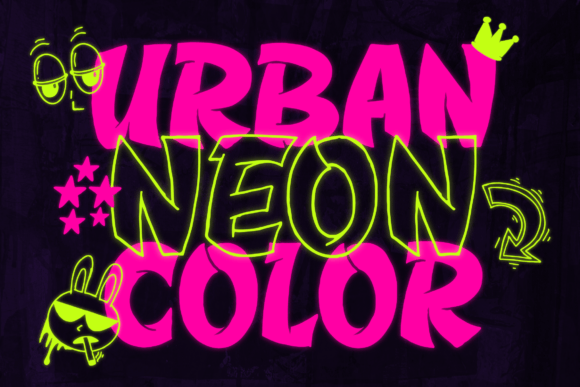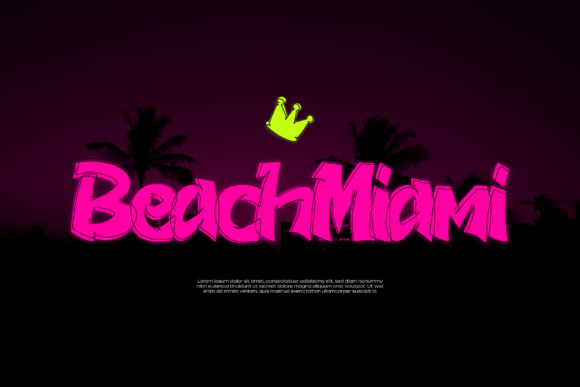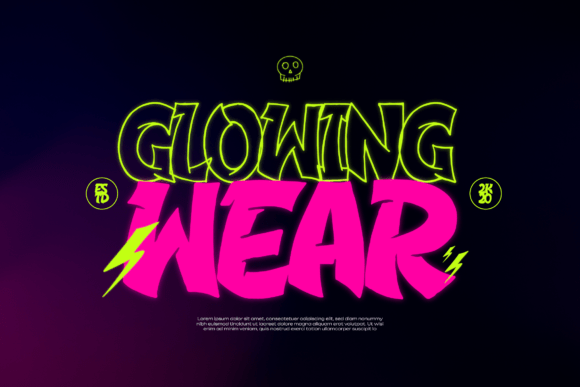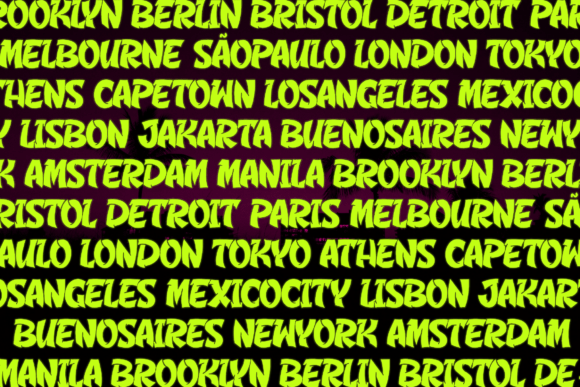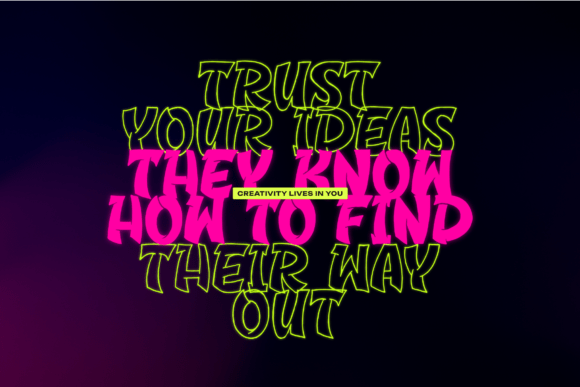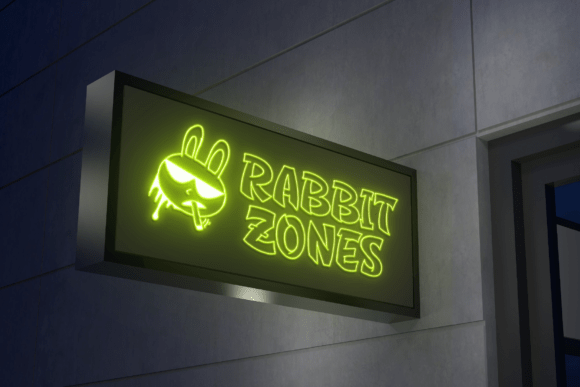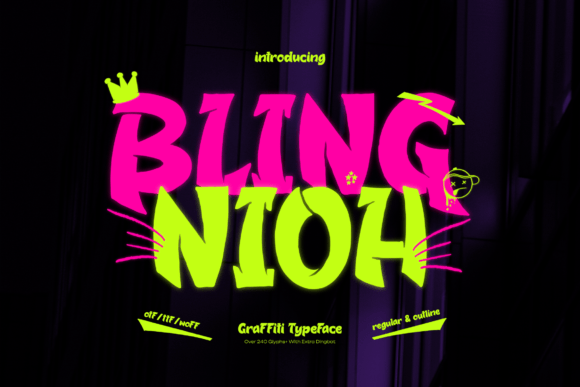
Introducing Bling Nioh: The Ultimate Graffiti Font for Creative Projects
Are you a designer or crafter looking for a unique and edgy font to add a touch of personality to your projects? Look no further than Bling Nioh, a bold and vibrant graffiti font that’s perfect for a wide range of creative endeavors. In this article, we’ll explore the features and benefits of Bling Nioh, and show you how it can elevate your designs to the next level.
What is Bling Nioh?
Bling Nioh is a graffiti font that’s designed to add a touch of urban flair to your projects. With its bold, chunky letters and vibrant aesthetic, this font is perfect for designers and crafters who want to make a statement. Whether you’re working on a logo, branding project, or homeware design, Bling Nioh is the perfect choice for anyone looking to add a bit of edge to their work.
What Can I Use Bling Nioh For?
Bling Nioh is an incredibly versatile font that can be used for a wide range of projects, including:
- Logos and branding projects: Add a touch of personality to your brand with Bling Nioh’s bold and eye-catching letters.
- Homeware designs: Create unique and stylish home decor items, such as cushions, mugs, and tote bags, with Bling Nioh’s urban flair.
- Product packaging: Stand out on store shelves with Bling Nioh’s bold and colorful font.
- Mugs and water bottles: Add a touch of personality to your drinkware with Bling Nioh’s fun and playful letters.
- Quotes and posters: Create eye-catching posters and quotes with Bling Nioh’s bold and vibrant font.
- Shopping bags and t-shirts: Add a touch of style to your apparel and packaging with Bling Nioh’s edgy aesthetic.
- Book covers and name cards: Create unique and stylish book covers and name cards with Bling Nioh’s bold and colorful letters.
- Invitation cards and greeting cards: Add a touch of personality to your invitations and greeting cards with Bling Nioh’s fun and playful font.
- Labels and photography: Use Bling Nioh to add a touch of style to your labels and photography projects.
- Watermark and special events: Create unique and stylish watermarks and event materials with Bling Nioh’s bold and eye-catching font.
Why Choose Bling Nioh?
So why choose Bling Nioh over other fonts? Here are just a few reasons why this graffiti font stands out:
- Unique and eye-catching: Bling Nioh’s bold and vibrant letters are sure to grab attention and add a touch of personality to your projects.
- Versatile: Bling Nioh can be used for a wide range of projects, from logos and branding to homeware designs and product packaging.
- High-quality: Bling Nioh is a high-quality font that’s designed to produce crisp and clear results, even at large sizes.
Tips and Tricks for Using Bling Nioh
Here are a few tips and tricks to help you get the most out of Bling Nioh:
- Experiment with colors: Bling Nioh looks great in bold and bright colors, so don’t be afraid to experiment and find the perfect hue for your project.
- Mix and match: Combine Bling Nioh with other fonts and graphics to create a unique and eye-catching design.
- Pay attention to spacing: Make sure to adjust the spacing between letters to ensure that your text is easy to read and visually appealing.
- Use it sparingly: While Bling Nioh is a bold and eye-catching font, it can be overwhelming if used too much. Use it sparingly to add a touch of personality to your design.
Bling Nioh is a unique and versatile graffiti font that’s perfect for designers and crafters looking to add a touch of personality to their projects. With its bold and vibrant letters, this font is sure to grab attention and make your designs stand out. Whether you’re working on a logo, branding project, or homeware design, Bling Nioh is the perfect choice for anyone looking to add a bit of edge to their work. So why wait? Download Bling Nioh today and start creating!